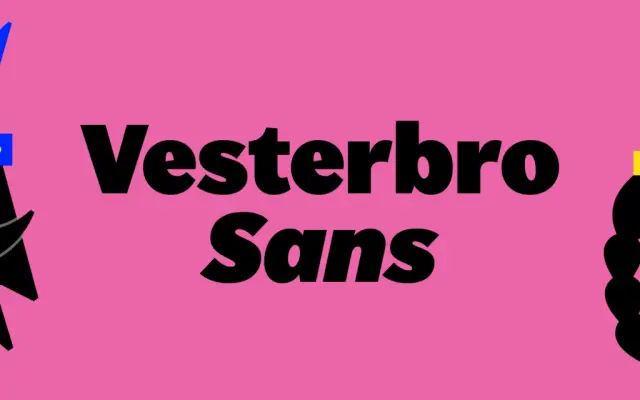
Vesterbro Sans
A humanist sans with a two-storey g, large counters and angled terminals, available in six weights plus a tightly spaced Poster cut, with full variable font support across Latin, Greek and Cyrillic.
Built as an extension of the Vesterbro concept, this family sits between geometric structure and humanist warmth, with details like angled terminals and generous counters giving it a readable, characterful texture. Six static weights from Light to Extra Bold are joined by a tightly spaced Poster style, all with matching italics, plus two variable fonts covering the full range. Latin, Greek and Cyrillic support makes it viable for international branding and editorial projects.
Described explicitly as having a humanist tone, with a two-storey g, large counters and angled terminals that differentiate it from purely geometric designs.